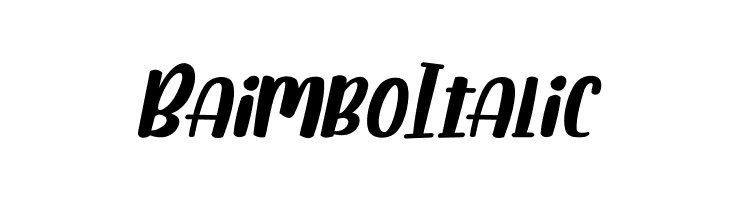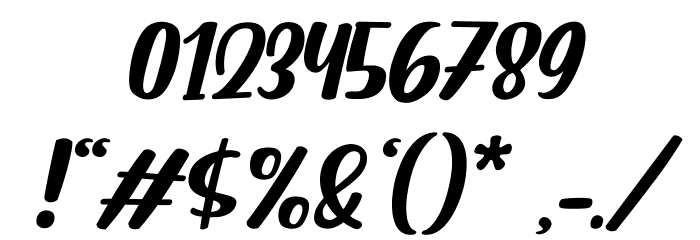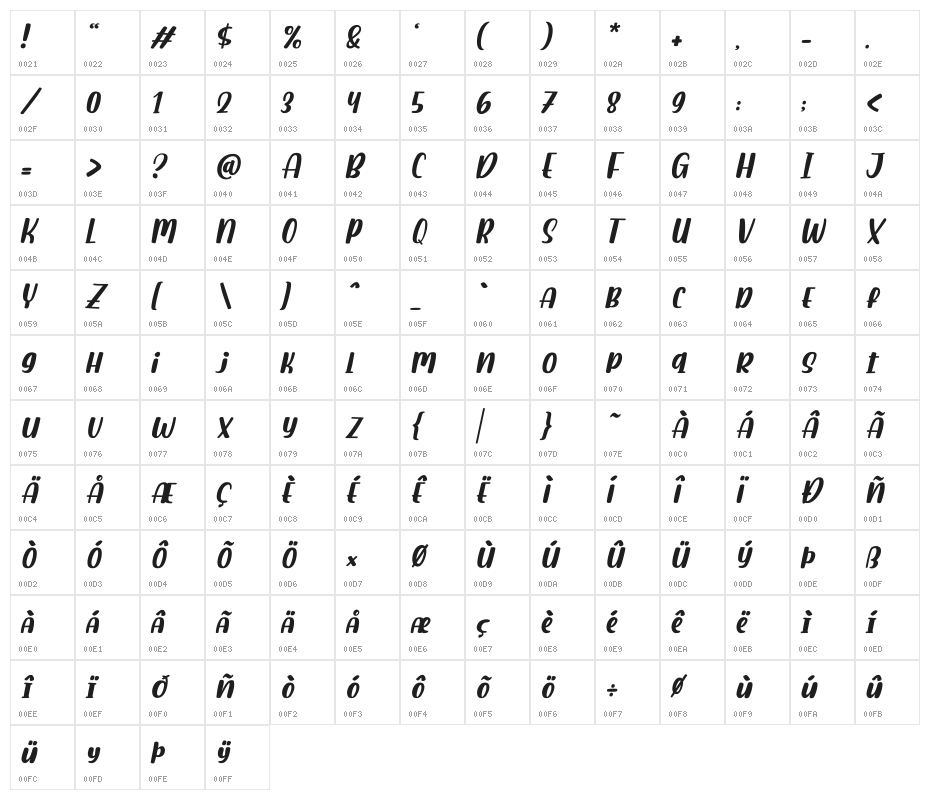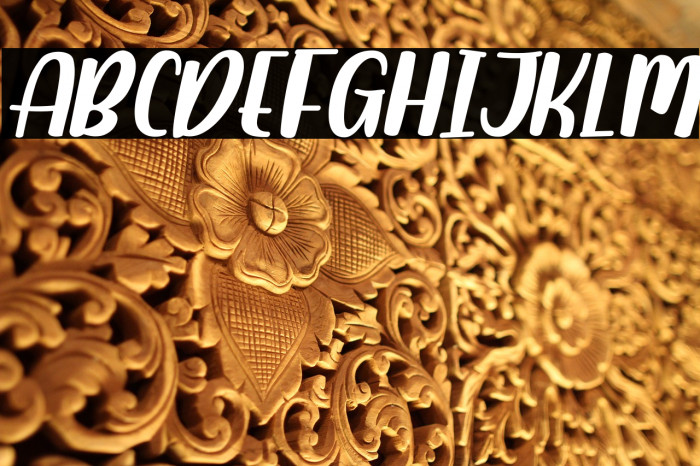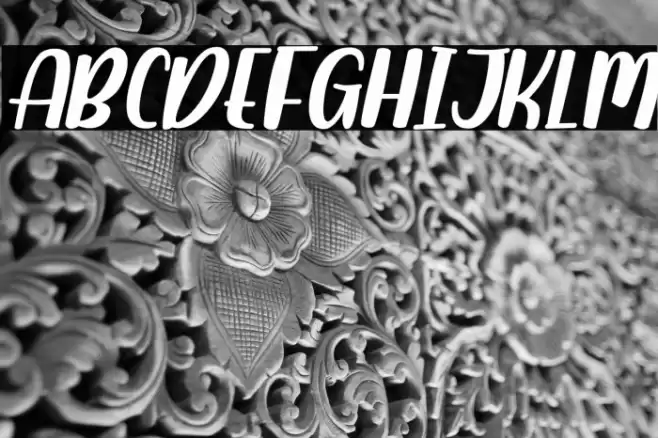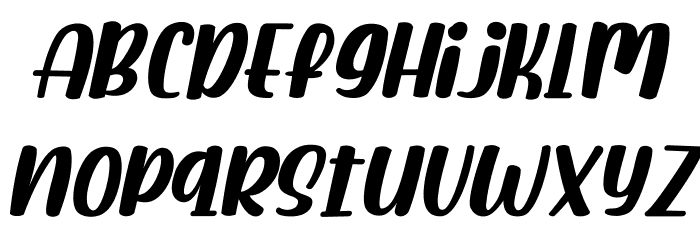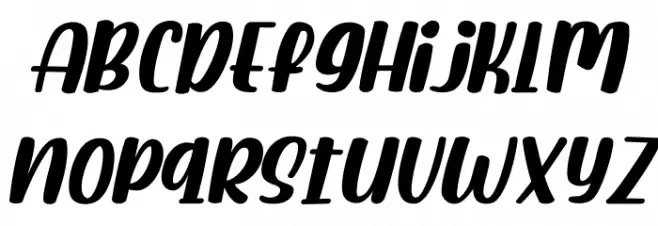
Baimbo Italic Font
Baimbo Italic Description
This font features a bold and dynamic script style with a strong italic slant, giving it a sense of movement and energy. The characters are closely spaced, enhancing its compact and cohesive appearance. The strokes are thick and consistent, providing a high contrast that makes each letter stand out distinctly. The uppercase and lowercase letters maintain a uniform style, with smooth curves and sharp edges that add to its modern and stylish look. The numerals and special characters are designed to match the overall aesthetic, making it versatile for various applications.
| Proposed Projects | Ideal for branding, logos, headlines, and posters where a bold and energetic impression is desired. |